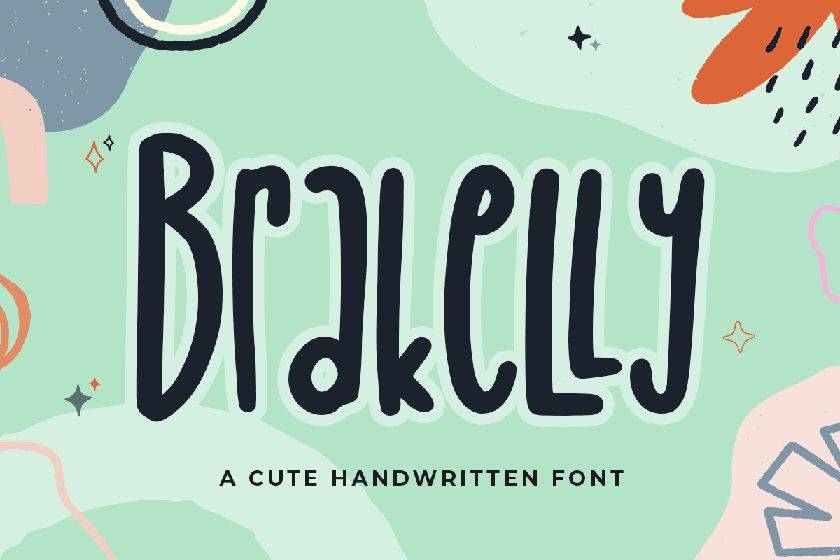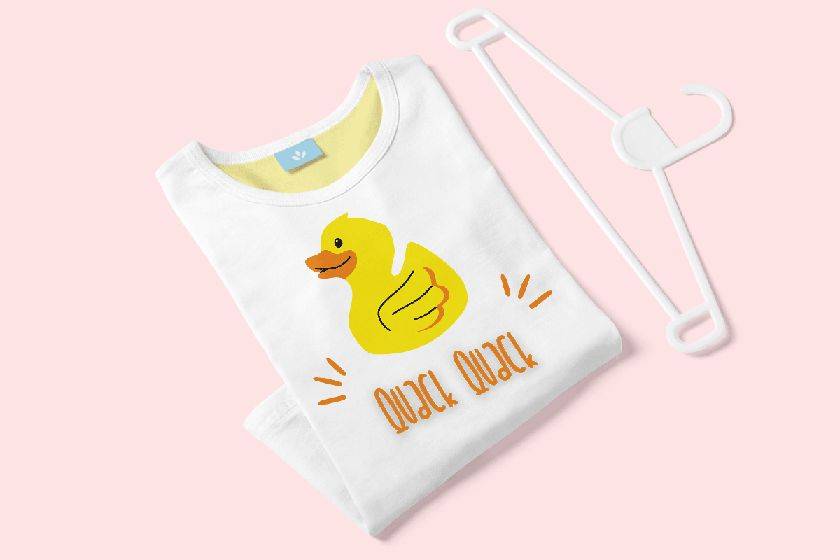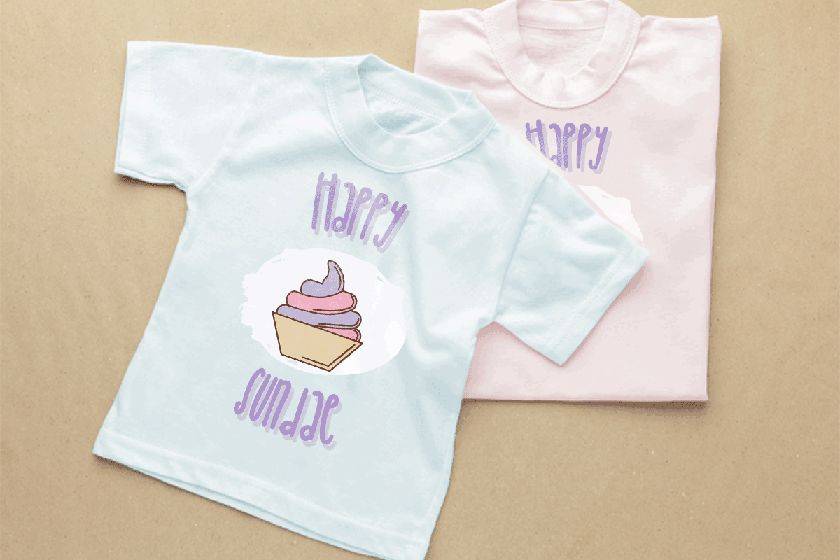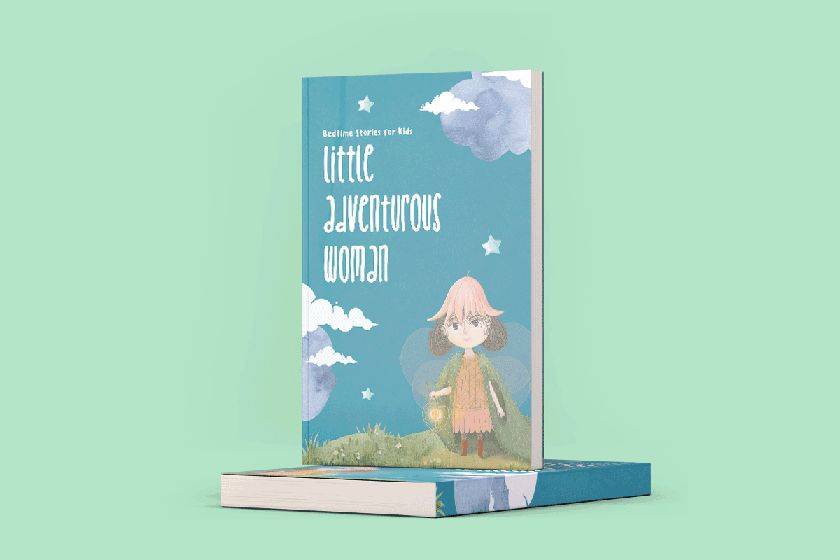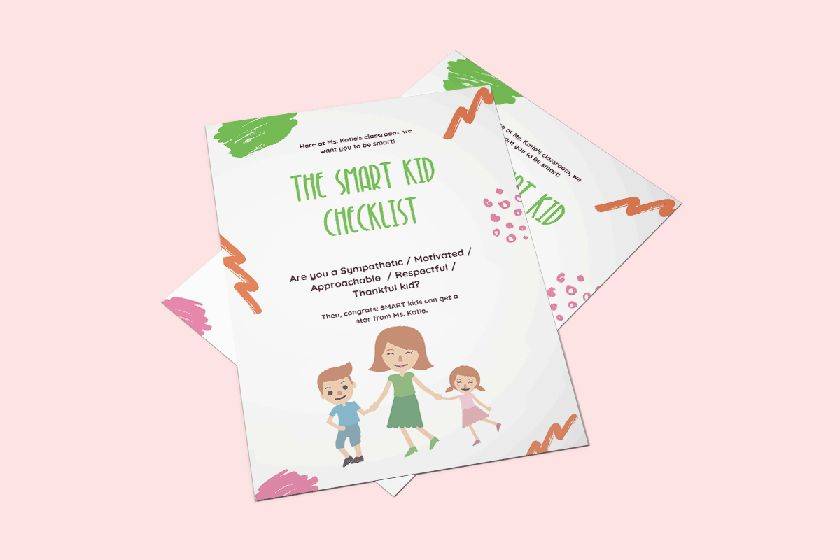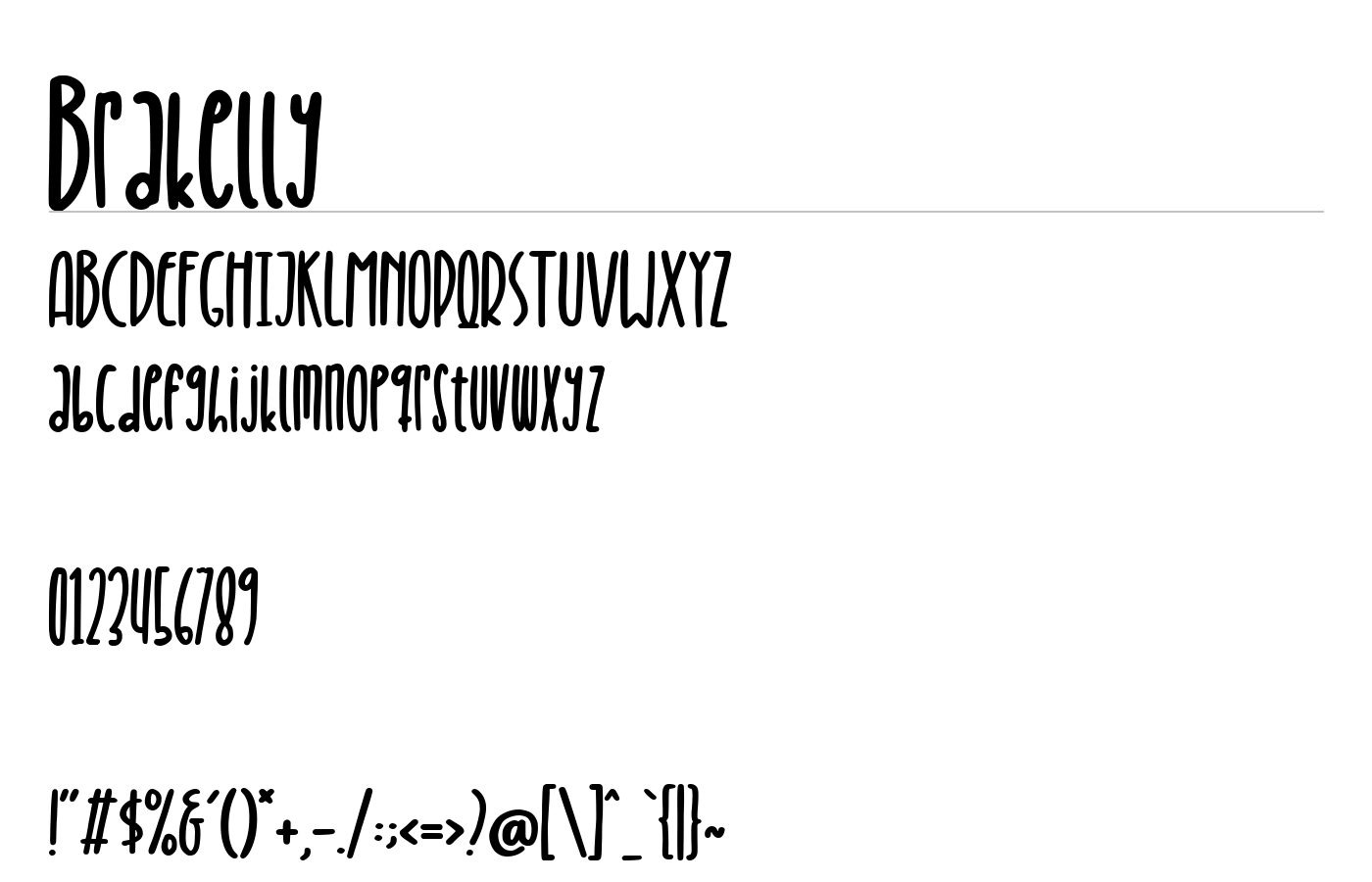
Brakelly is a playful, narrow sans serif font with a hand-drawn feel, characterized by its tall, condensed letterforms and whimsical curves. Its uneven strokes and quirky details give it a friendly, informal personality, making it ideal for creative projects, fun branding, and eye-catching headlines. This font works best where a casual, artistic vibe is desired, adding character without sacrificing legibility.
Brakelly Font